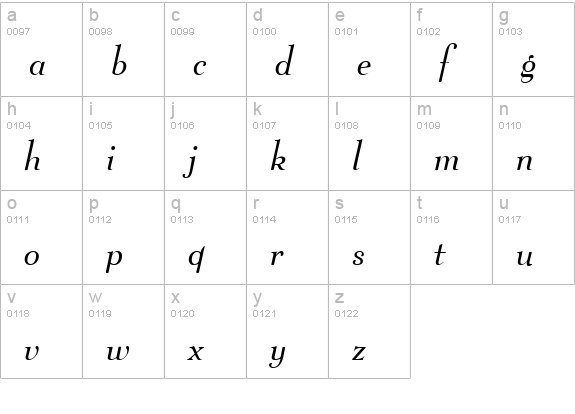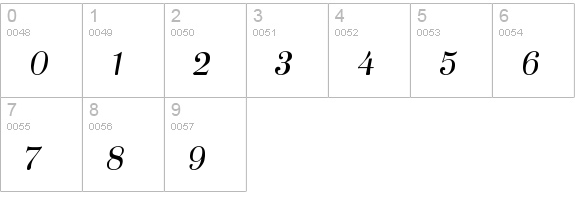
QuartierBookItalic Font Details
QuartierBookItalic font is a sleek and elegant typeface that exudes sophistication and style. Its italicized design adds a touch of flair to any text, making it perfect for adding a touch of luxury to your projects. The delicate curves and sharp lines of QuartierBookItalic create a harmonious balance that is both eye-catching and easy to read. What makes QuartierBookItalic font even more appealing is that it is completely free to download. Yes, you read that right – you can get your hands on this exquisite font without spending a dime! Simply head over to FontsMarket.com to download QuartierBookItalic and elevate your design projects with this stunning typeface. Whether you're working on a branding project, designing a website, or creating print materials, QuartierBookItalic font will add a touch of elegance and sophistication that will make your work stand out. Don't miss out on this fantastic opportunity to enhance your designs with the beauty of QuartierBookItalic font – download it for free today!